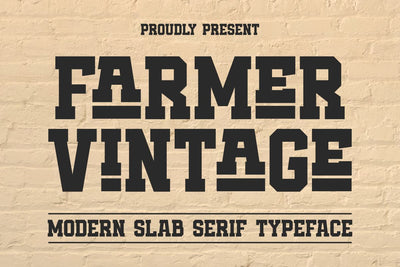
Farmer Vintage - Slab Serif Font
Farmer Vintage is a stunning and cool sport bold display font. Font with standard glyphs. fonts that are suitable for crafts, branding, business, sports, headlines, magazines, logotypes, and many other ideas. suitable for crafters and graphic designers!